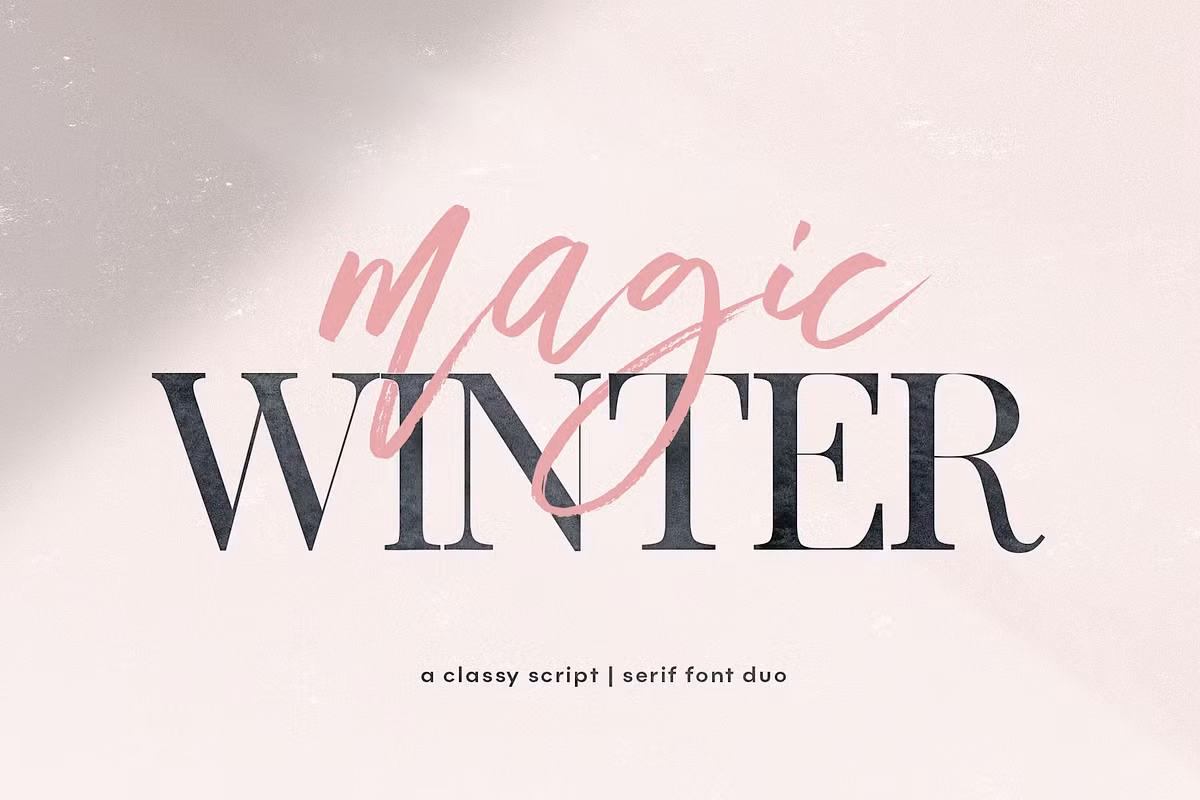
Magic Winter | Script Serif Font Duo Free Download
Magic Winter | Script Serif Font Duo Free Download is a perfect combination of elegance and charm. Featuring a sophisticated serif font paired with a flowing script, this font duo is ideal for festive and holiday-themed designs, as well as projects that require a touch of warmth and class. The fonts work together seamlessly to create a stylish yet readable design that stands out.